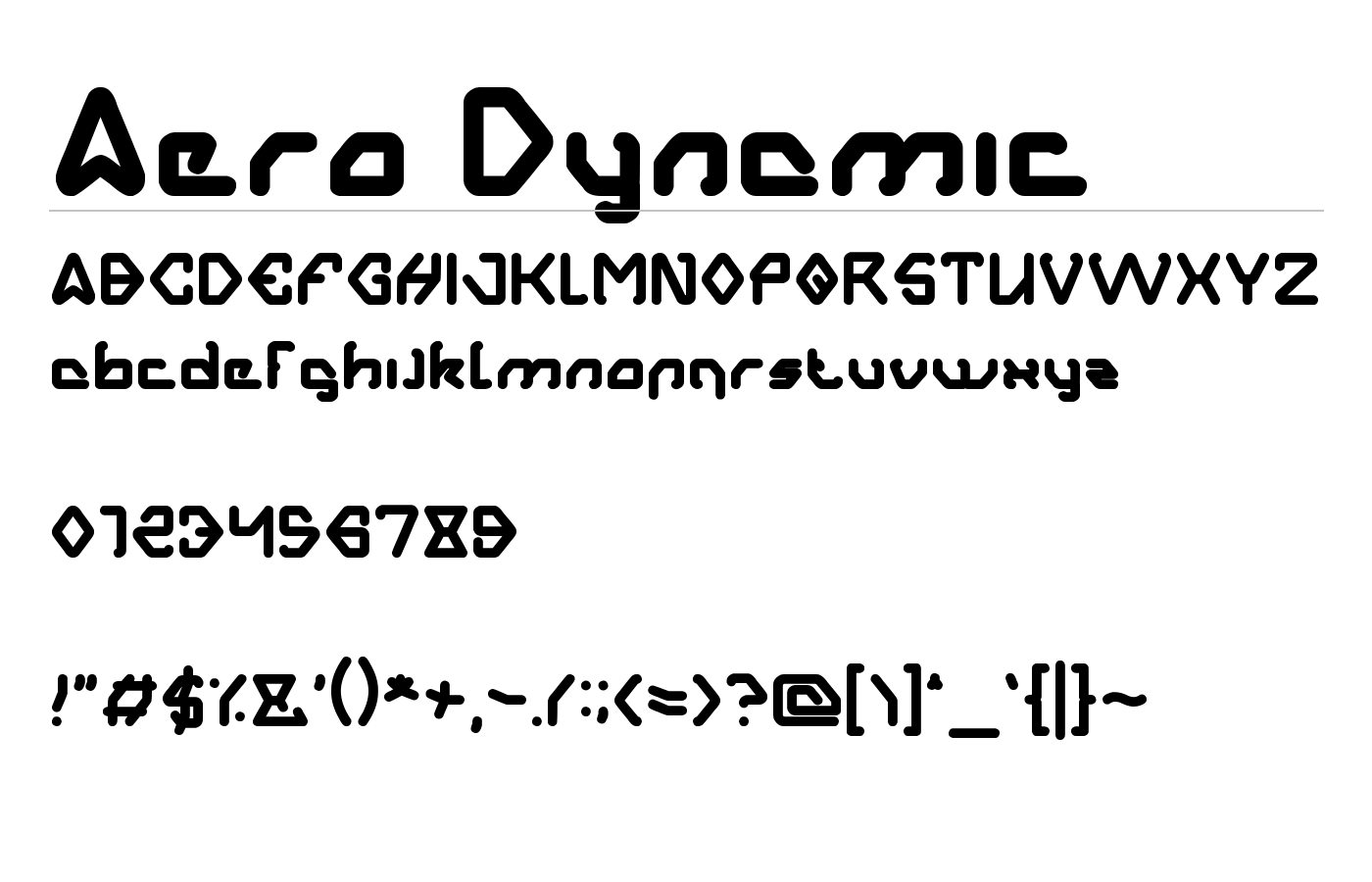
Aero Dynamic is a bold, geometric sans serif font characterized by its rounded corners and futuristic, almost techno-inspired letterforms. With its unique shapes and consistent stroke weight, it conveys a modern, dynamic, and playful personality, making it an excellent choice for branding, posters, and digital projects that aim to stand out with a sleek, innovative vibe. This font works best in headline or display use where its distinctive style can shine.
Aero Dynamic Font
About Aero Dynamic Font